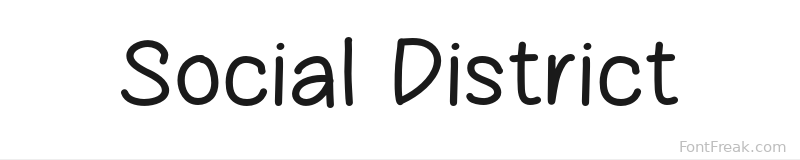
Social District
The Social District font by MJType is a modern sans-serif typeface that exudes an inviting and friendly personality. Released in 2024, this font is characterized by its clean lines and balanced proportions, making it a versatile choice for a variety of design projects. The stroke weight is consistent, offering a sense of stability and clarity, while the gentle curves provide a touch of warmth. With its ample spacing, Social District ensures legibility, making it easy to read across different mediums.
This font is ideal for use in social media graphics, community event flyers, and trendy restaurant menus. Its approachable aesthetic makes it perfect for brands looking to connect with their audience on a personal level. Graphic designers will find it particularly useful for creating promotional materials that require a modern yet friendly touch. Small business owners can also leverage this font to enhance their branding, ensuring their communication feels relatable and engaging.
The target audience for the Social District font includes graphic designers, small business owners, and content creators who value contemporary design elements. Its versatility allows it to shine in various applications, from casual blog headings to vibrant event signage.
What sets the Social District font apart is its ability to blend professionalism with a warm, inviting spirit. This font captures the essence of community and connection, making it a standout choice for anyone looking to convey a message that resonates. With the Social District font free download available, you can easily incorporate this unique typeface into your projects and elevate your designs to new heights.